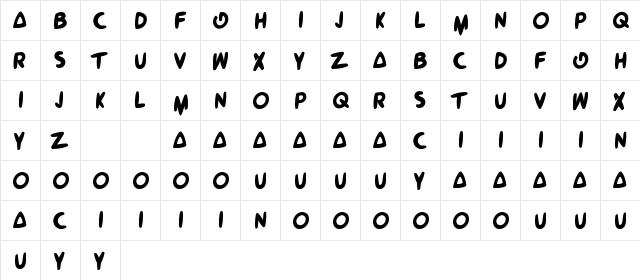
Alex Grima Font Regular
Design Context for Alex Grima Font Typeface
Alex Grima Font is a composed and adaptable typeface that performs quietly and consistently across a wide range of design contexts.